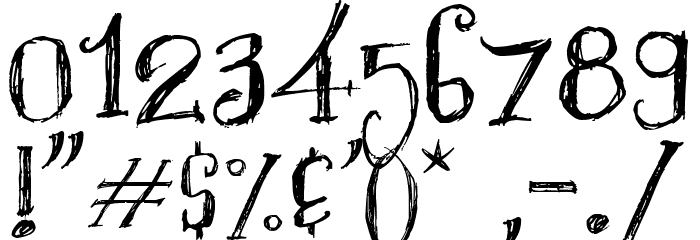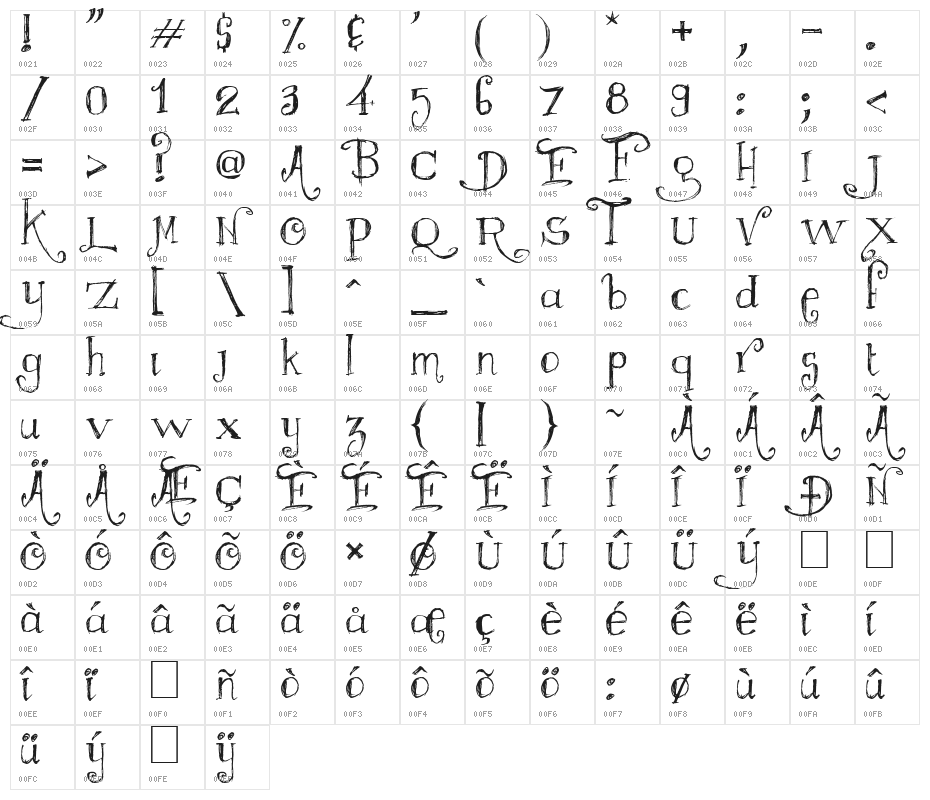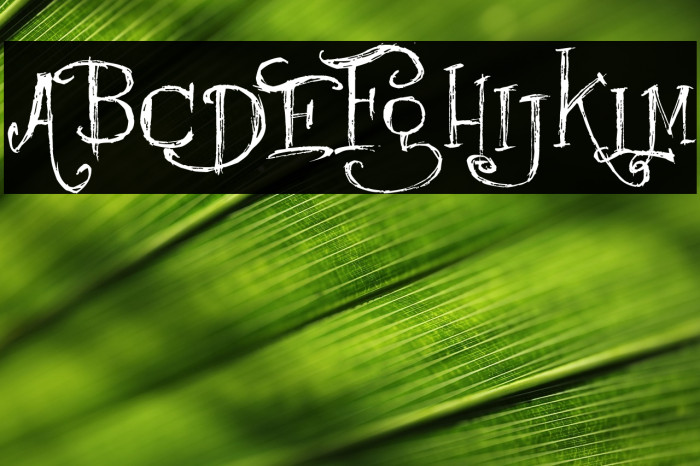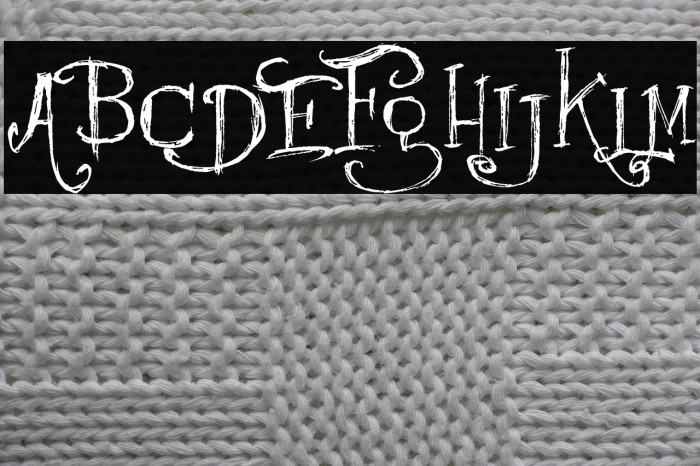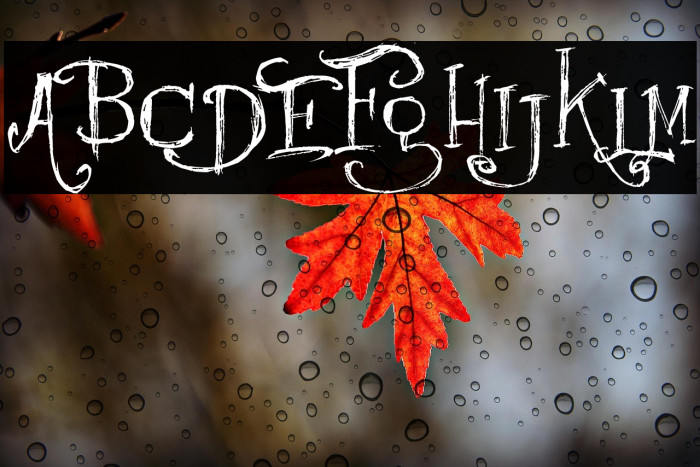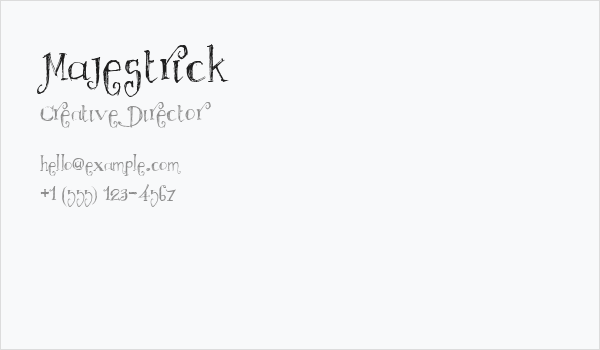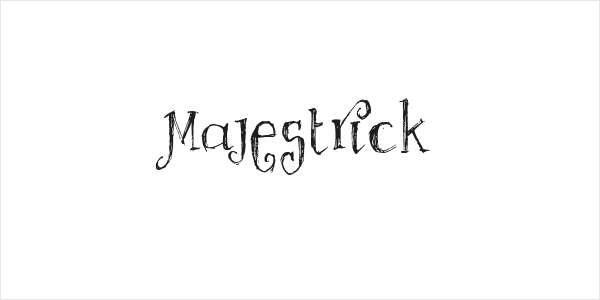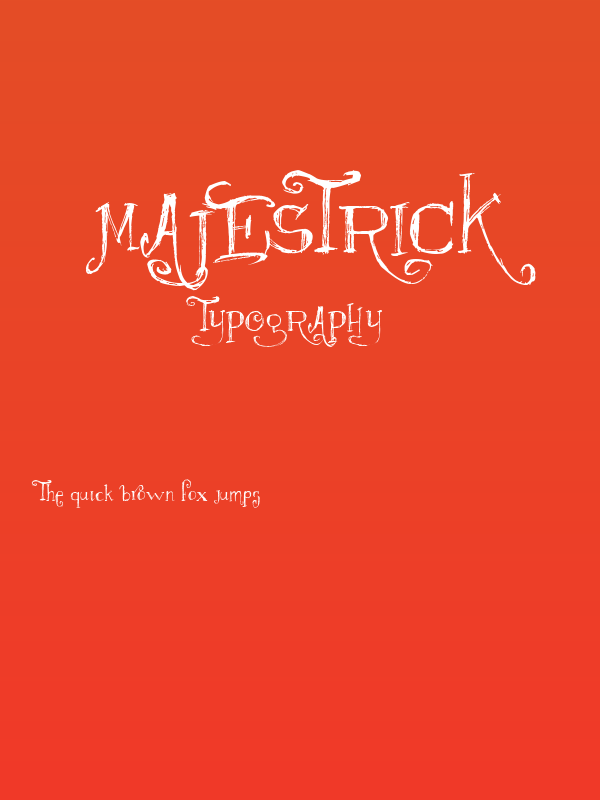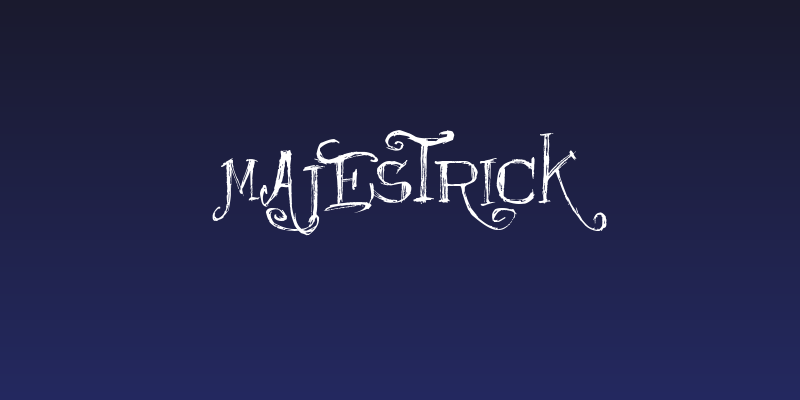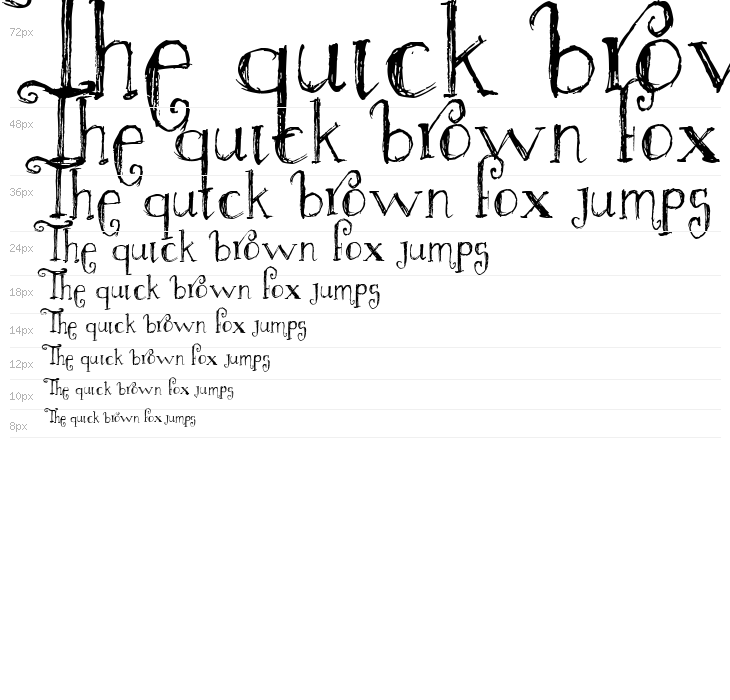
Majestrick Font
Majestrick Description
This font features an ornate and decorative style, characterized by its intricate swirls and flourishes that extend from the main strokes of the letters. The uppercase letters are particularly elaborate, with exaggerated serifs and embellishments that give a sense of grandeur and elegance. The lowercase letters maintain a consistent style, though they are slightly more restrained in their ornamentation. The numerals and special characters follow the same decorative theme, ensuring a cohesive look across all glyphs. The overall appearance is reminiscent of vintage calligraphy, with a hand-drawn quality that adds a touch of whimsy and artistic flair.
| Overall Style | Vintage, Decorative |
| Proposed Projects | Ideal for wedding invitations, vintage-themed posters, artistic book covers, and branding that requires a touch of elegance. |